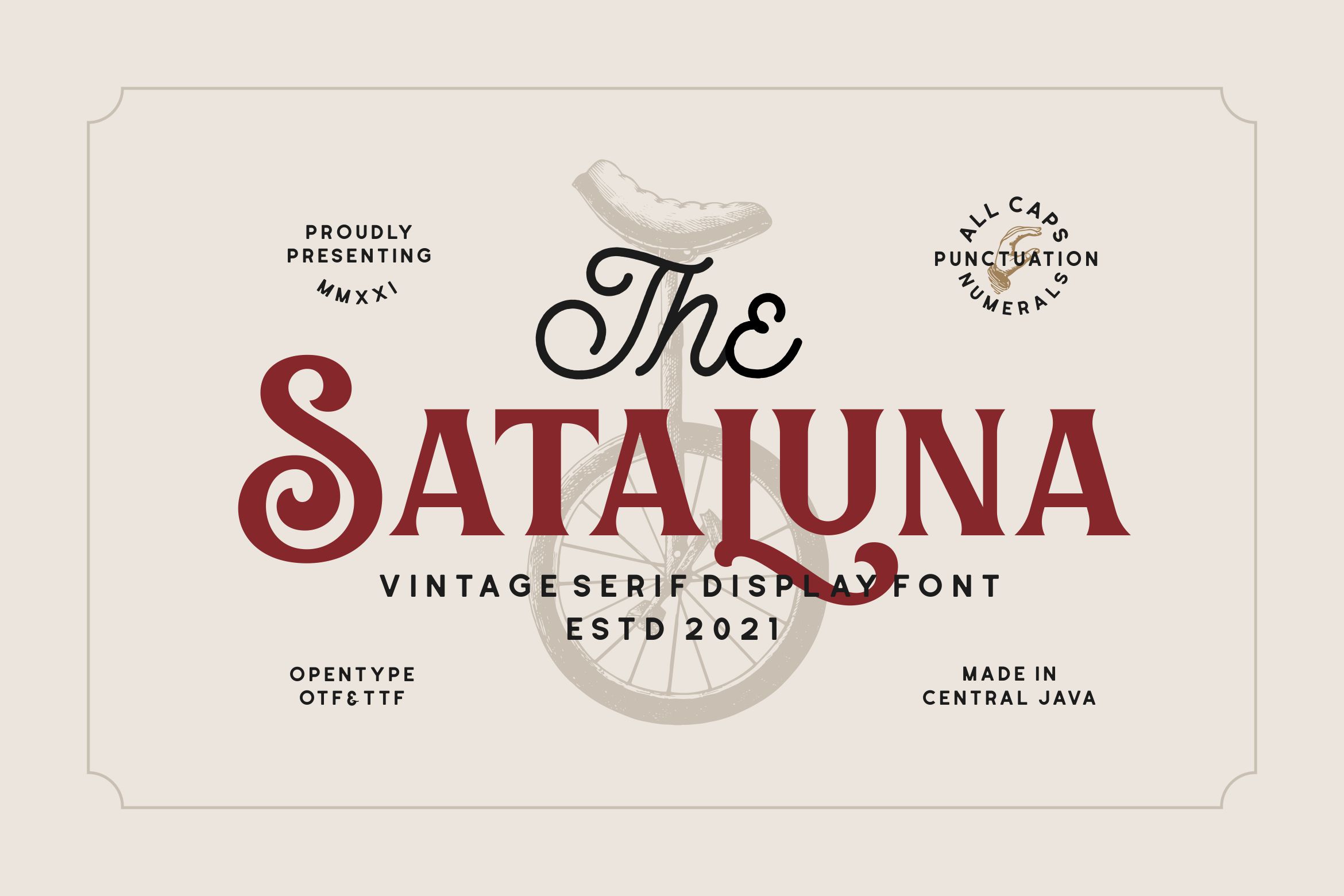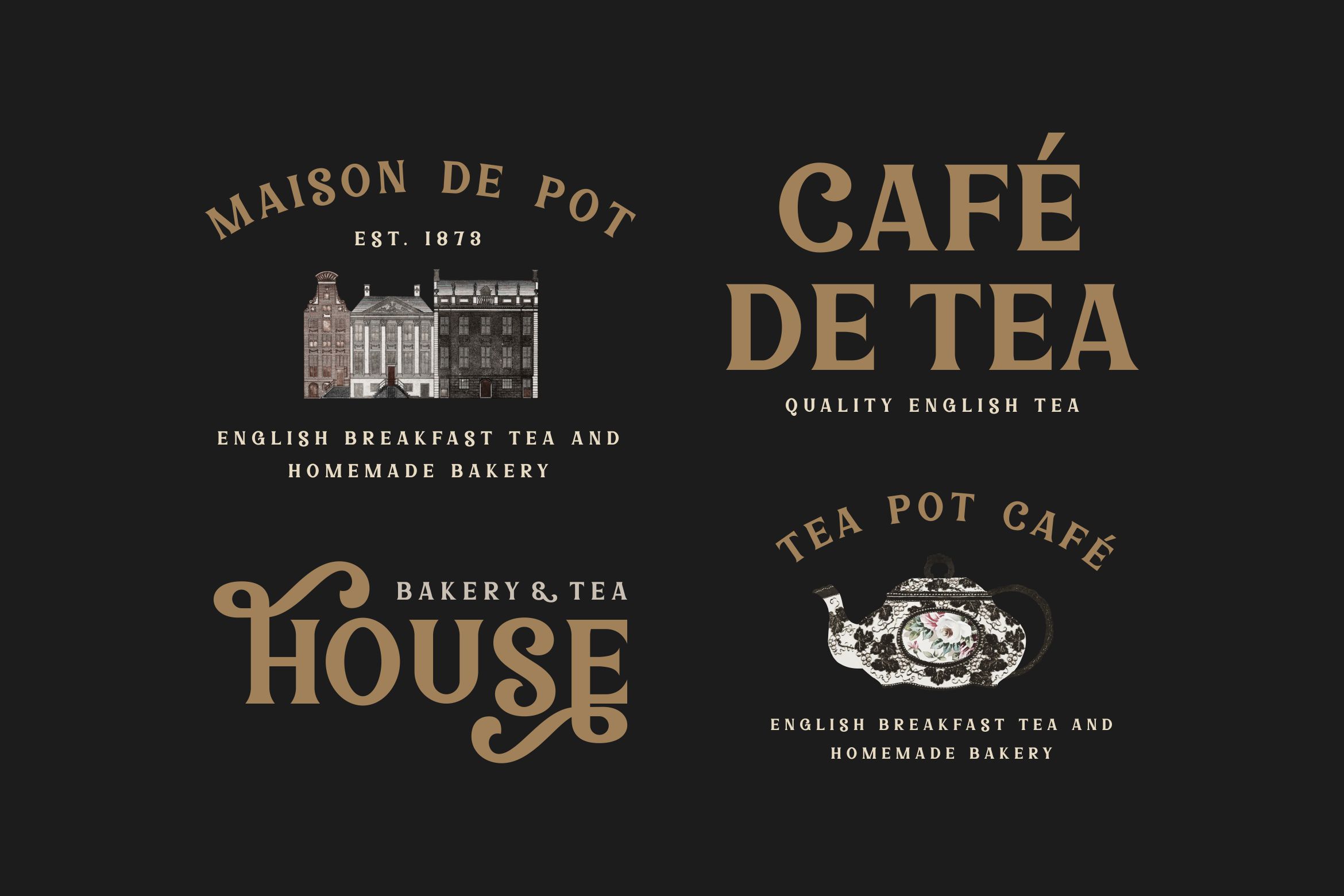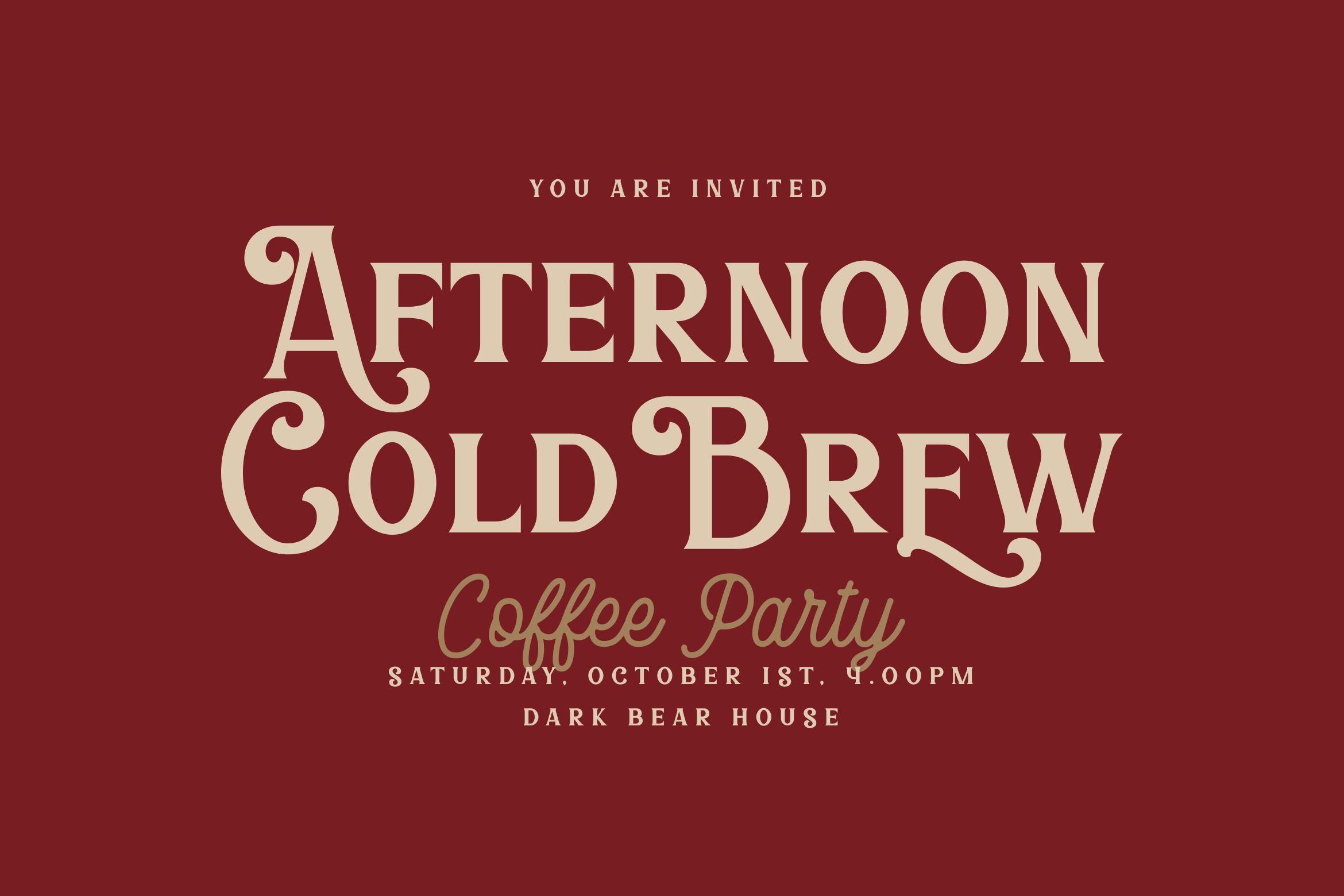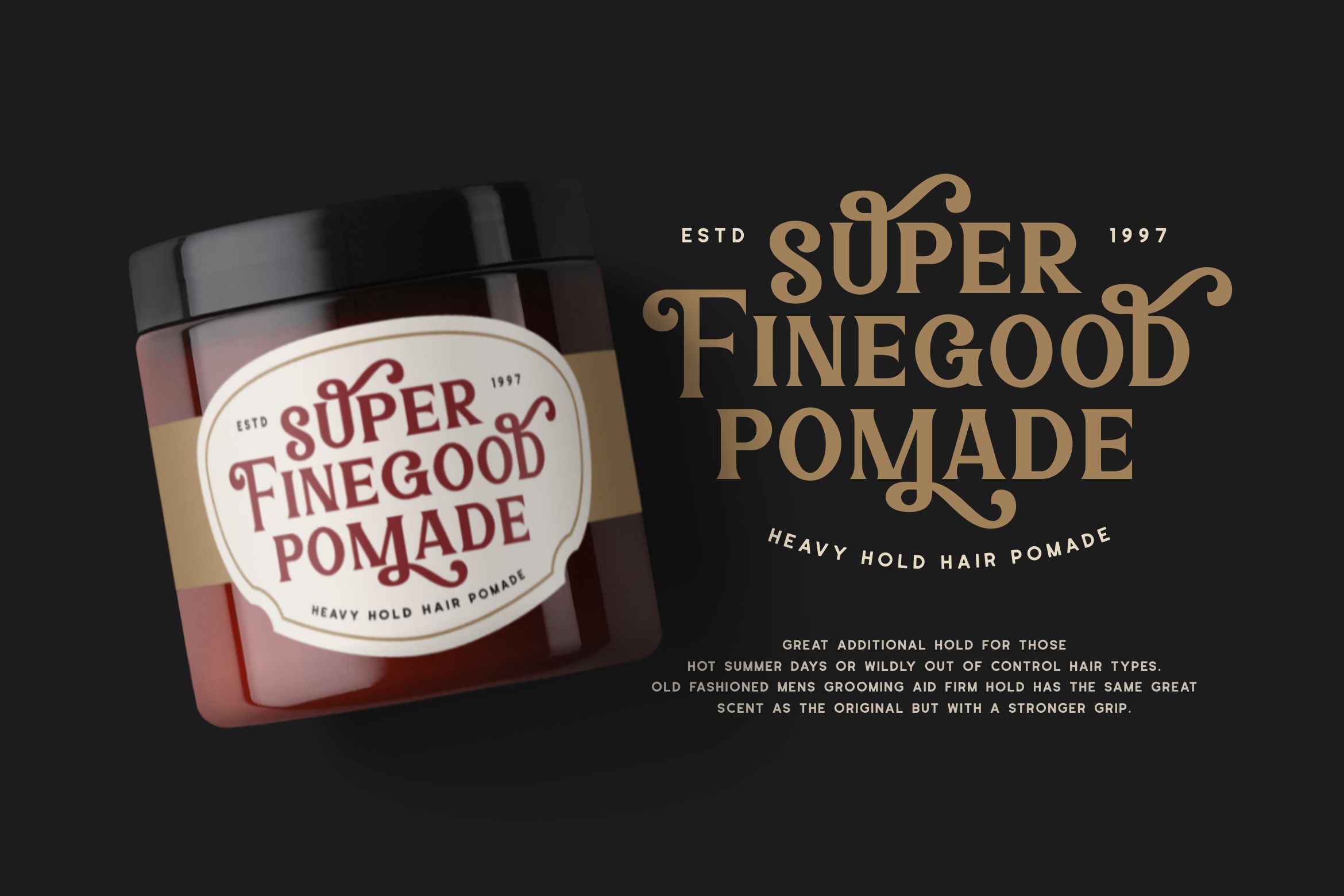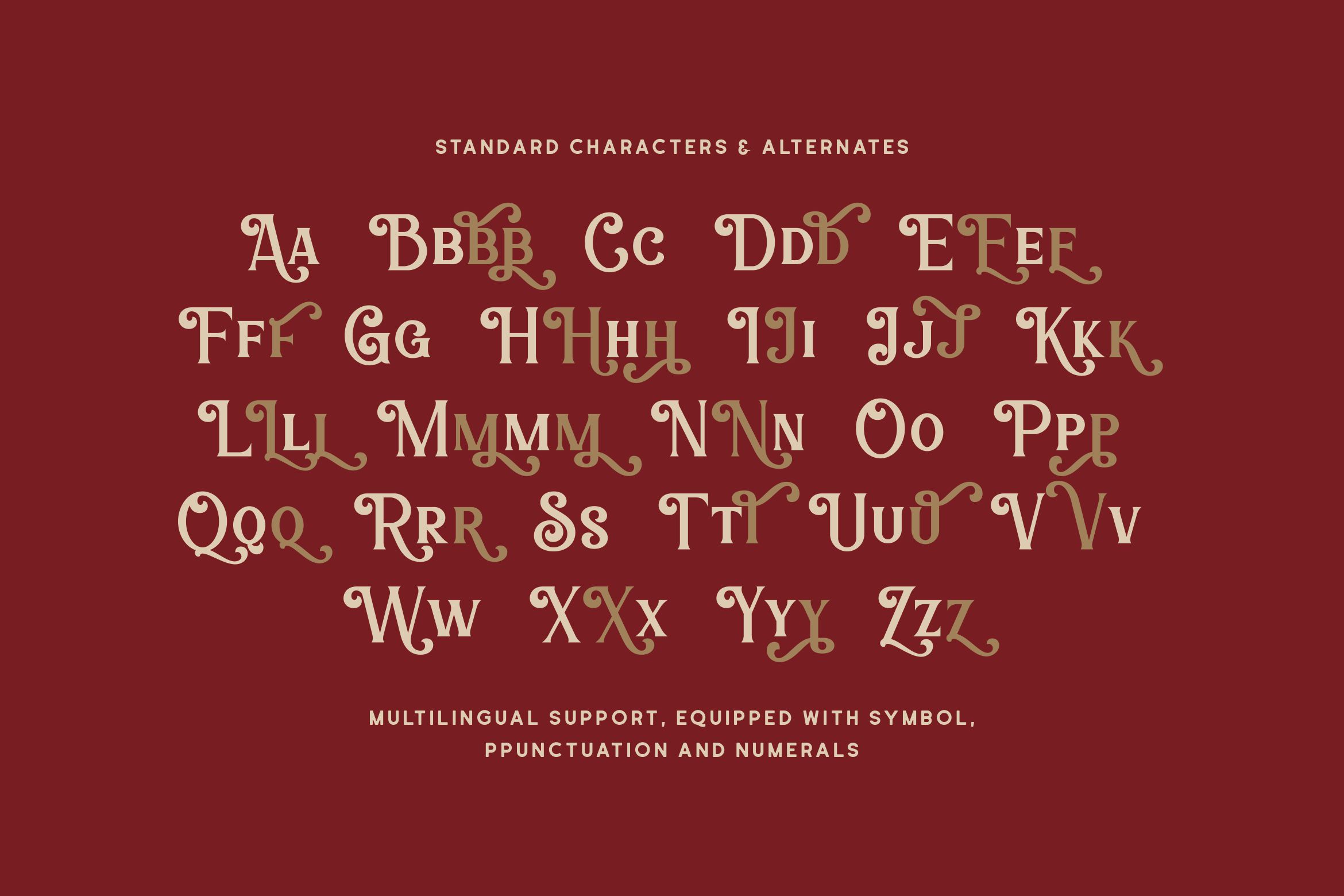
Sataluna
Sataluna is a charming vintage serif display font that blends classic elegance with whimsical swashes and stylish character alternates. Its strong vertical strokes and decorative curls give it a nostalgic yet playful feel, making it a perfect choice for branding, cafe logos, product labels, or retro-themed designs. Whether you’re designing tea packaging or a pomade label, Sataluna adds flair and authenticity with a vintage soul.
Equipped with all caps, multilingual support, punctuation, numerals, and a wide variety of stylistic alternates, Sataluna offers both flexibility and flair. Its refined curves and unique personality are especially effective in editorial headlines, boutique branding, and nostalgic promotional content. This font brings personality and sophistication to any project with a vintage twist.